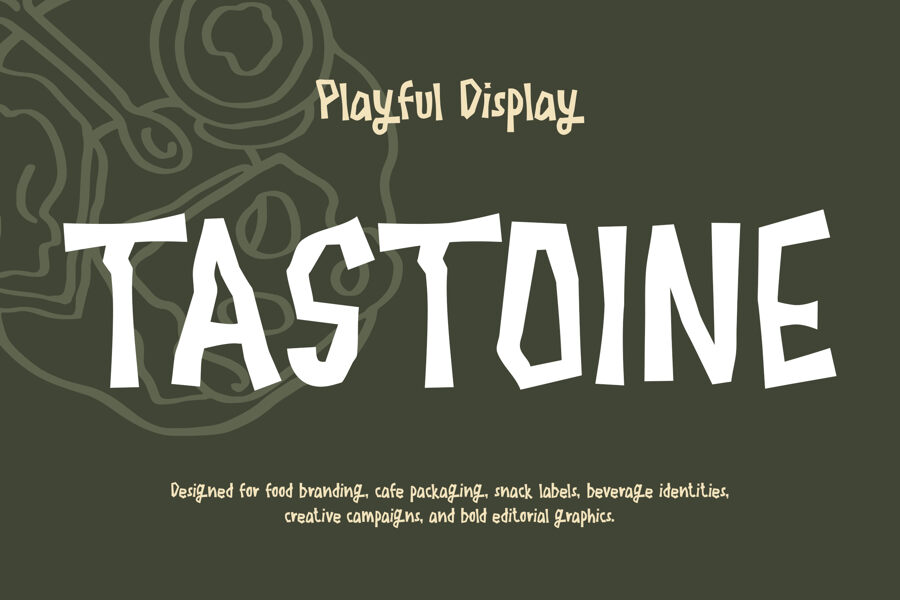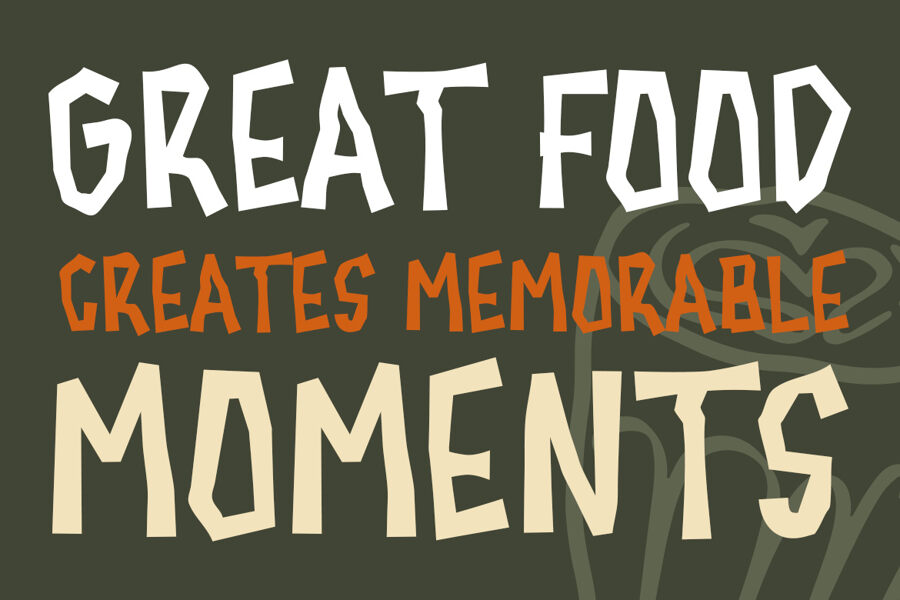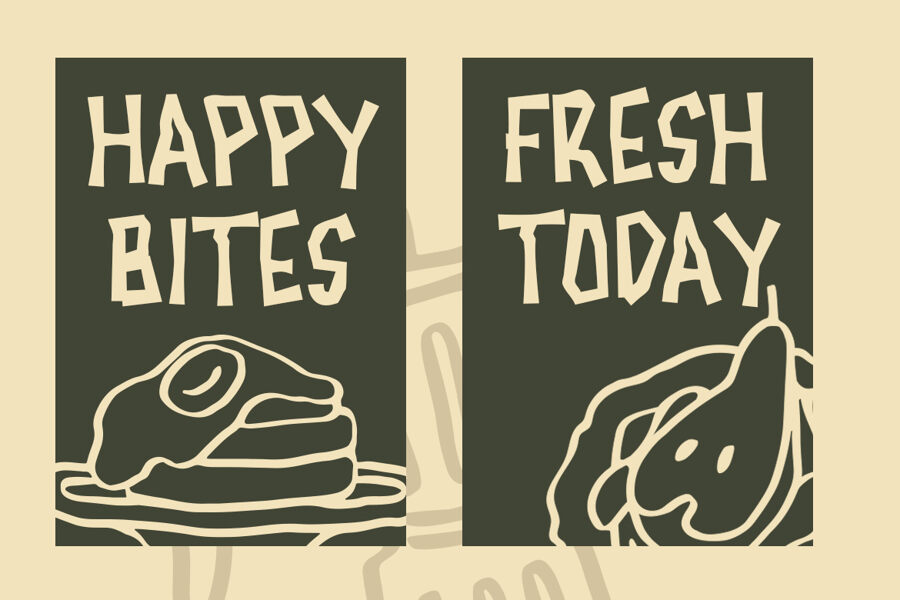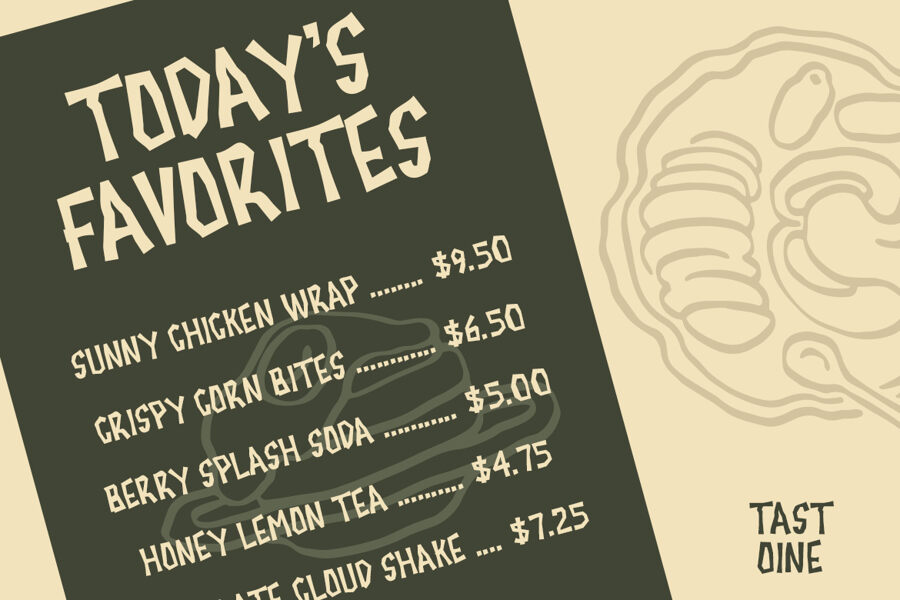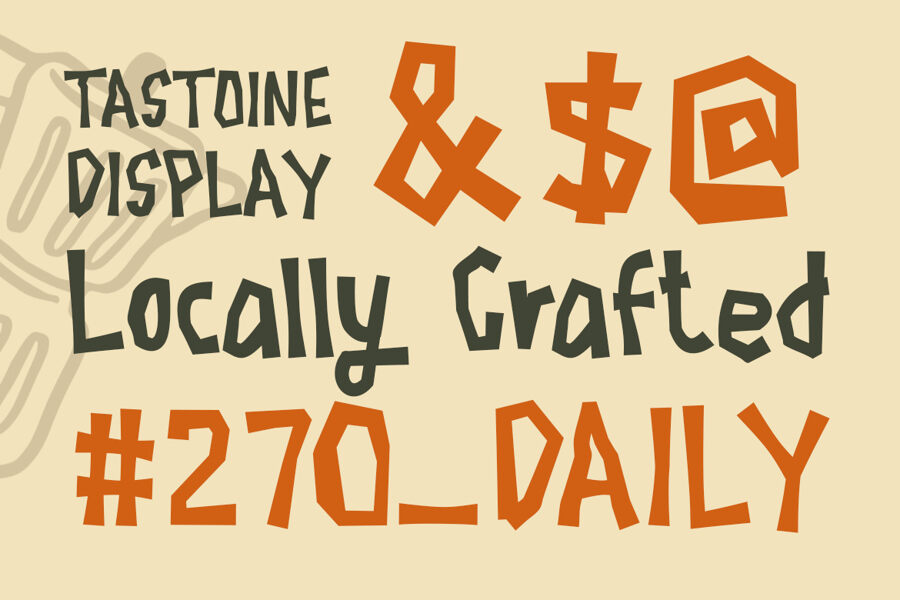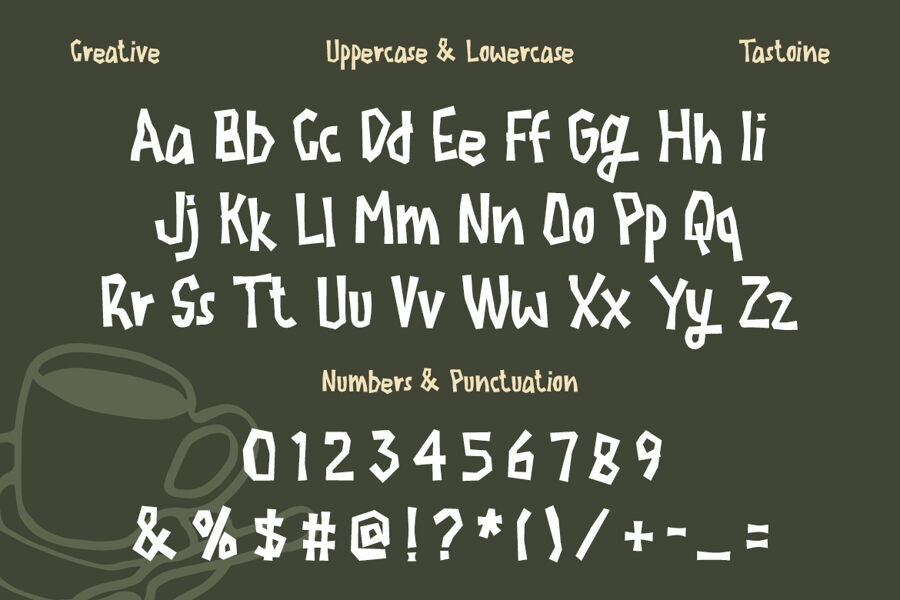
Tastoine is a playful handcrafted display font that brings warmth, creativity, and personality to every project. Inspired by organic hand-drawn lettering, it features bold, irregular shapes and expressive characters that create a genuine handmade appearance. Moreover, its unique structure adds visual energy while remaining clear and easy to read. As a result, every headline feels more inviting, memorable, and full of life.